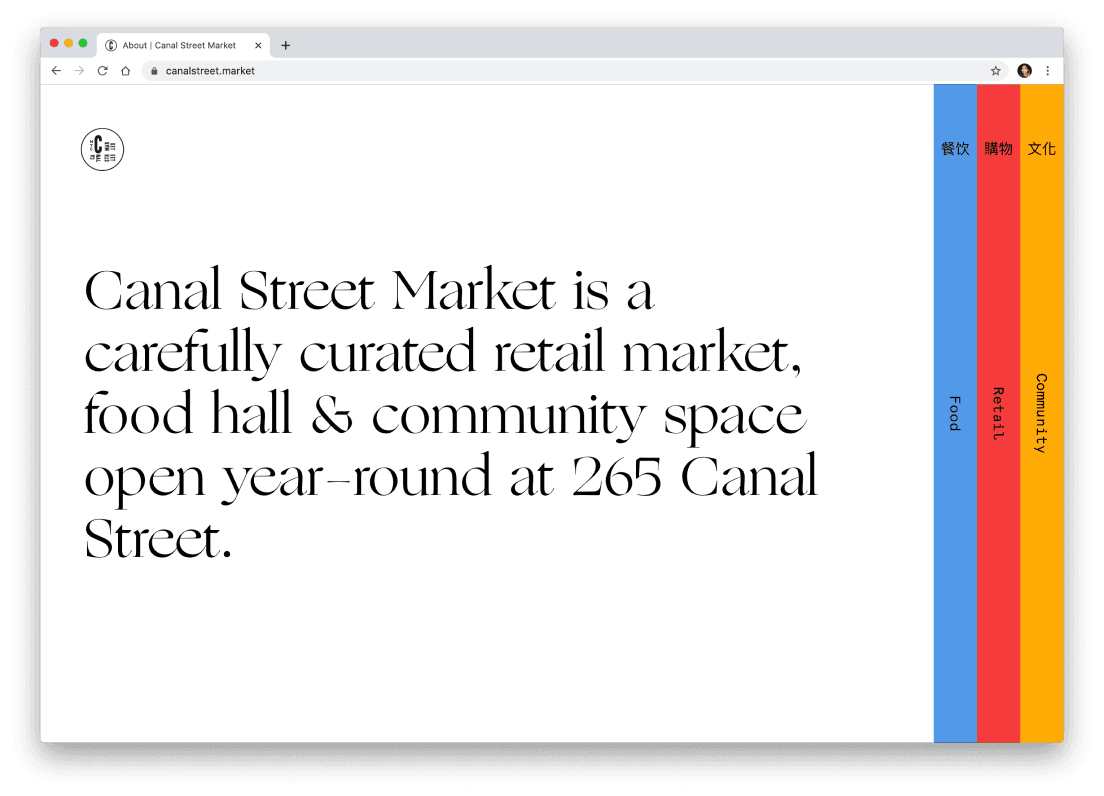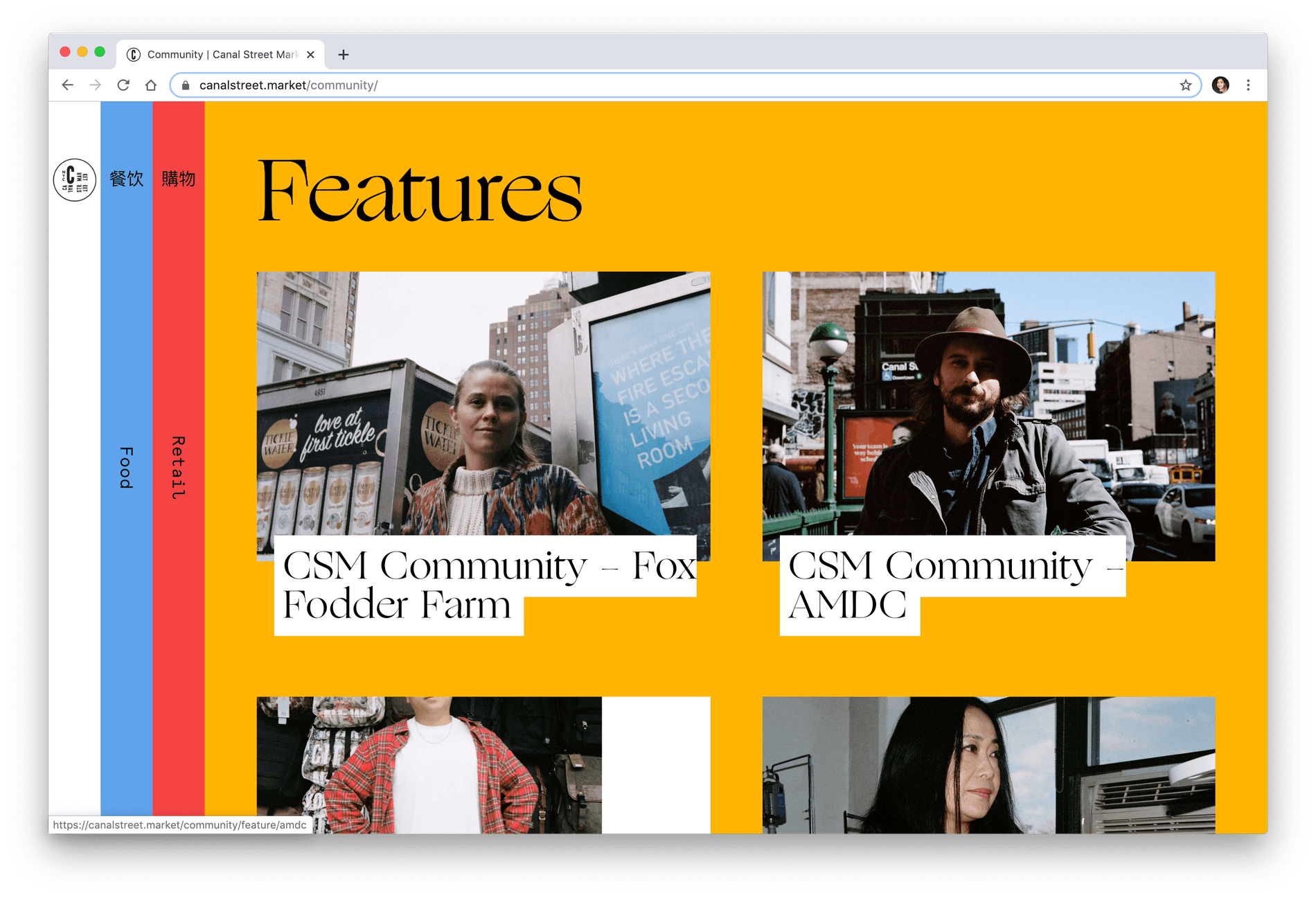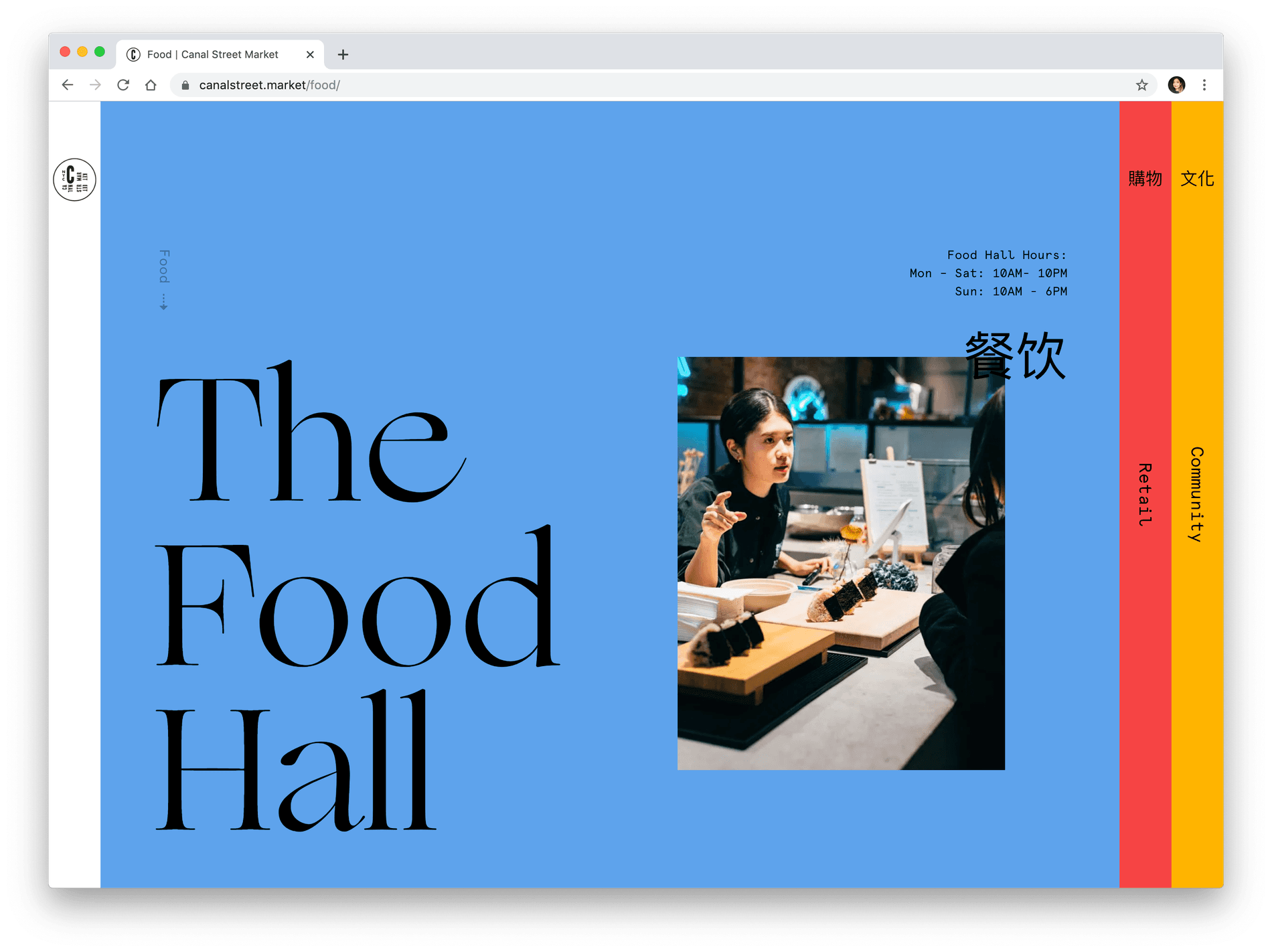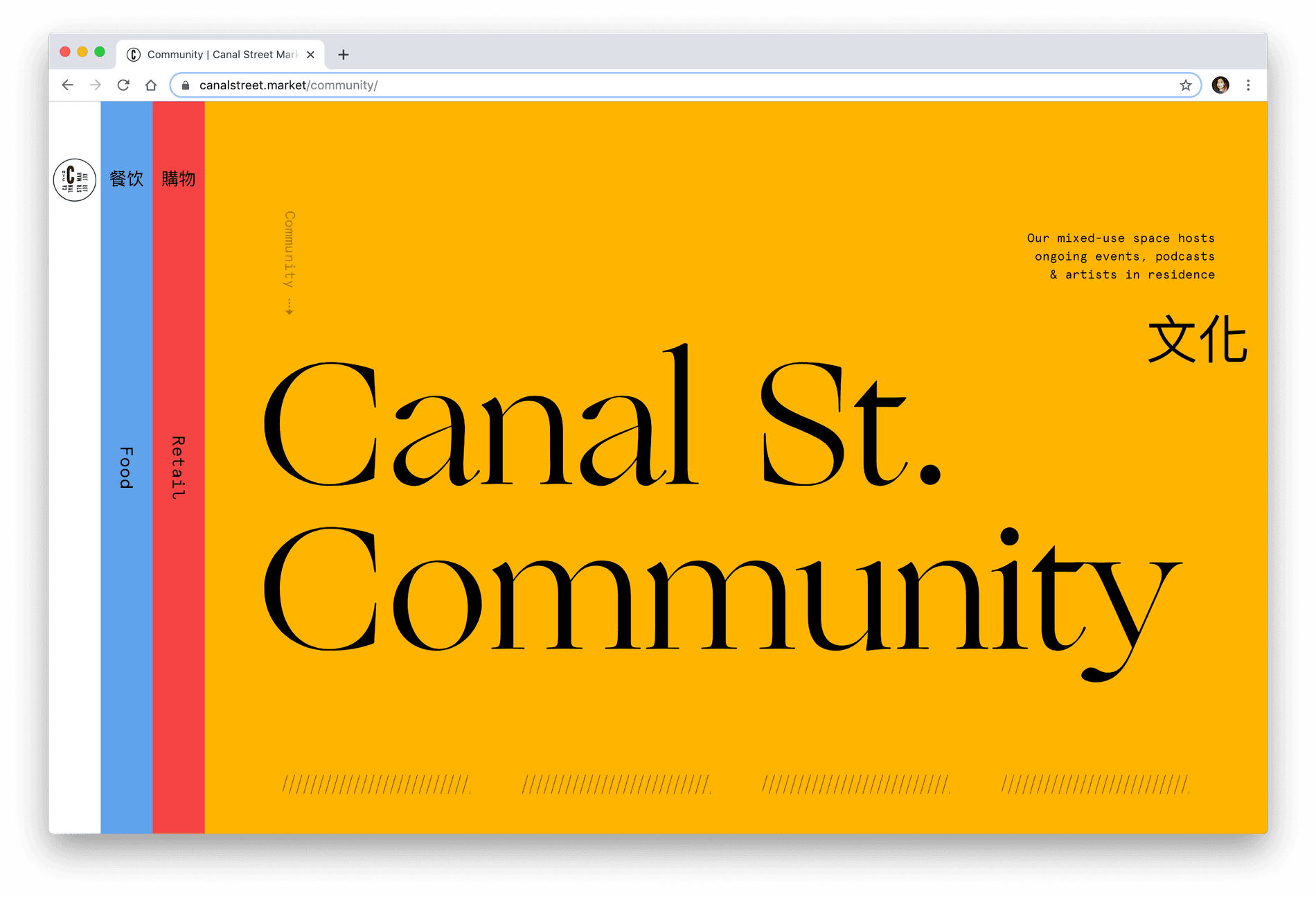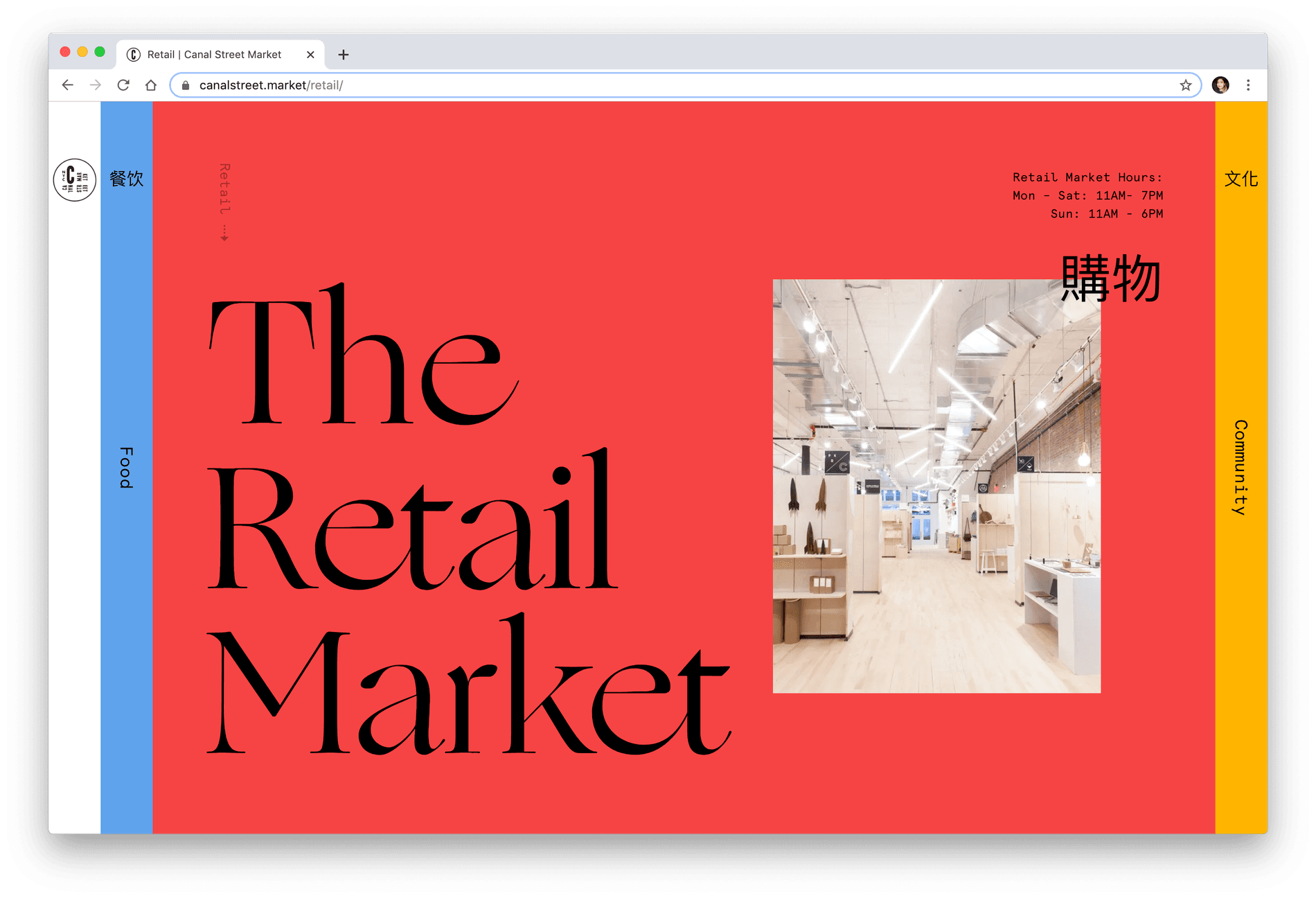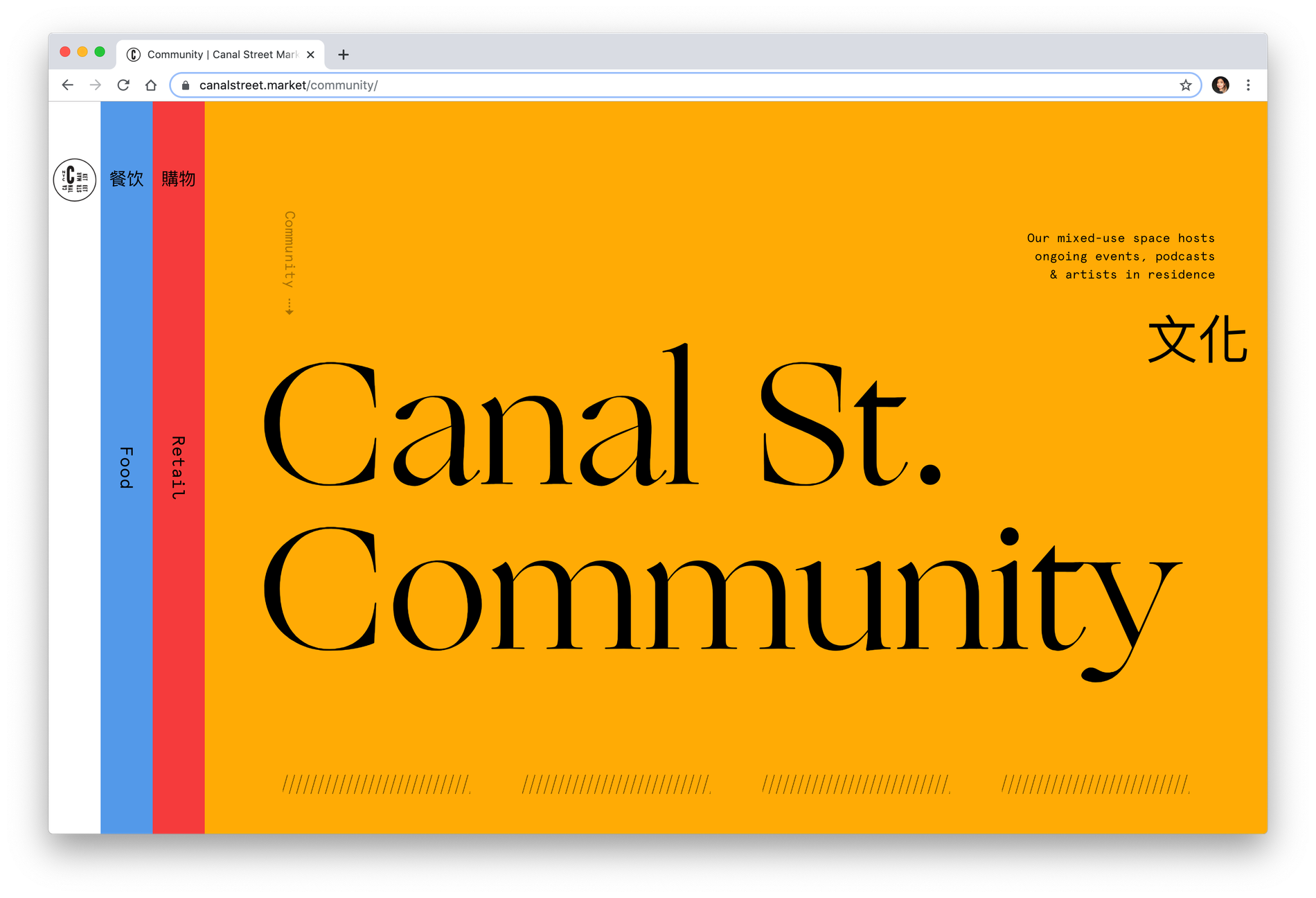
Canal Street Market & Ogg
Canal Street Market is a retail market, food hall, and community space open year-round in Downtown New York, curated to reflect the vibrant and lively neighborhood where two distinct NYC districts, SoHo and Chinatown, collide.
Zero Studios was inspired by the sense of discovery, playfulness, and community in the market and wanted the website to reflect this vision. They utilize Ogg to display bold headlines on the website, which highlight the organization’s pillars: food, market, and community.
Typeface: Ogg